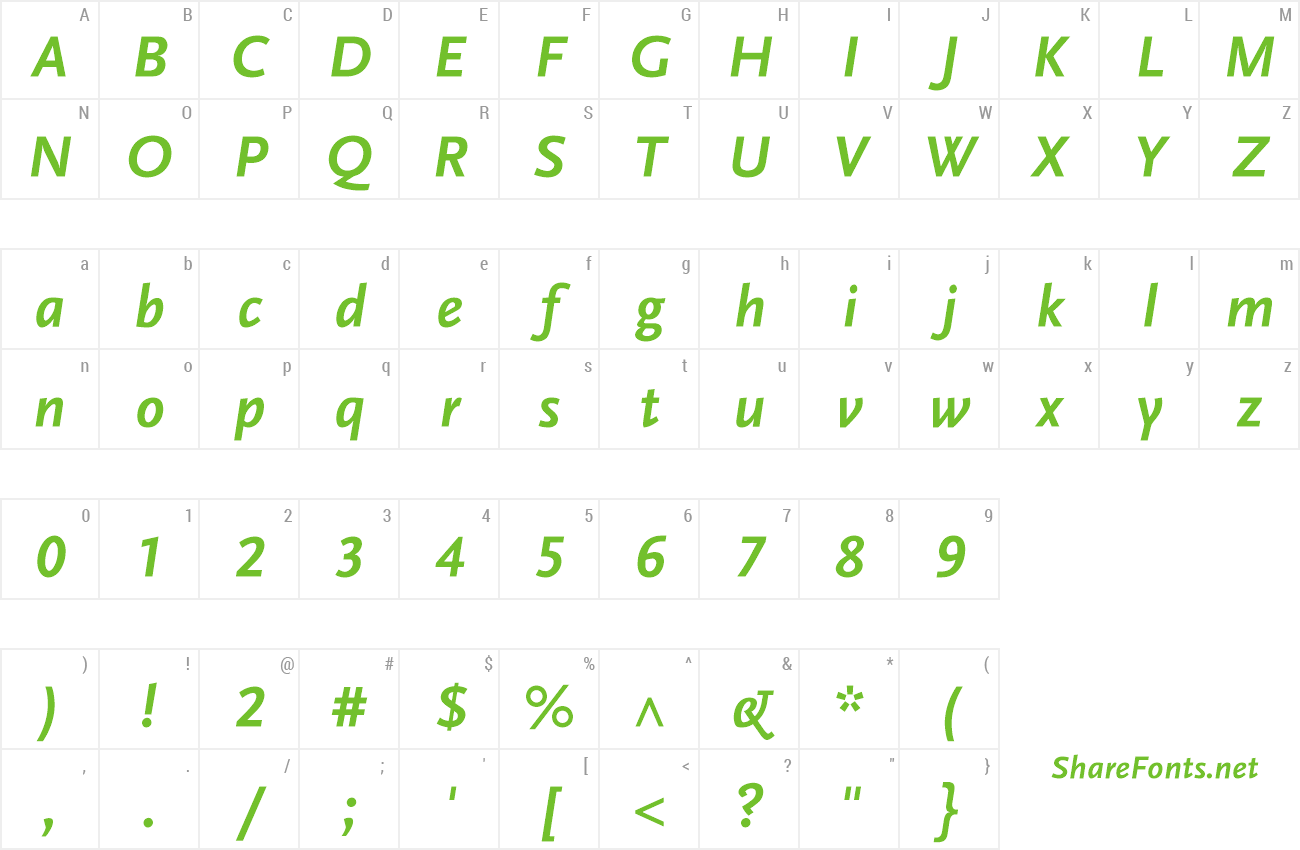
Scala Sans Font
Scala Sans Font - ← back to family page. Web woff2 is supported in safari versions 12+. The service used to deliver this font for use on websites is provided by adobe fonts and. Web scala sans pro condensed bold. Web explore scala sans designed by martin majoor at adobe fonts. Dutch type designer martin majoor created this sans fontfont between 1993 and 2003. Web try our best sellers. Web ff scala sans web pro sc regular. Buy scala sans pro complete family desktop font from martin majoor on fonts.com.
Web try our best sellers. Dutch type designer martin majoor created this sans fontfont between 1993 and 2003. Web explore scala sans designed by martin majoor at adobe fonts. ← back to family page. Buy scala sans pro complete family desktop font from martin majoor on fonts.com. Web scala sans pro condensed bold. The service used to deliver this font for use on websites is provided by adobe fonts and. Web ff scala sans web pro sc regular. Web woff2 is supported in safari versions 12+.
The service used to deliver this font for use on websites is provided by adobe fonts and. Web ff scala sans web pro sc regular. Web try our best sellers. Web woff2 is supported in safari versions 12+. ← back to family page. Web scala sans pro condensed bold. Web explore scala sans designed by martin majoor at adobe fonts. Buy scala sans pro complete family desktop font from martin majoor on fonts.com. Dutch type designer martin majoor created this sans fontfont between 1993 and 2003.
Identifont FF Scala Sans
Buy scala sans pro complete family desktop font from martin majoor on fonts.com. The service used to deliver this font for use on websites is provided by adobe fonts and. Web ff scala sans web pro sc regular. Web woff2 is supported in safari versions 12+. Dutch type designer martin majoor created this sans fontfont between 1993 and 2003.
Web woff2 is supported in safari versions 12+. Web ff scala sans web pro sc regular. ← back to family page. Web explore scala sans designed by martin majoor at adobe fonts. Web try our best sellers.
Buy scala sans pro complete family desktop font from martin majoor on fonts.com. Web explore scala sans designed by martin majoor at adobe fonts. ← back to family page. Web woff2 is supported in safari versions 12+. The service used to deliver this font for use on websites is provided by adobe fonts and.
Web ff scala sans web pro sc regular. Web try our best sellers. Web woff2 is supported in safari versions 12+. Web explore scala sans designed by martin majoor at adobe fonts. Dutch type designer martin majoor created this sans fontfont between 1993 and 2003.
Buy scala sans pro complete family desktop font from martin majoor on fonts.com. Web woff2 is supported in safari versions 12+. Web scala sans pro condensed bold. The service used to deliver this font for use on websites is provided by adobe fonts and. Dutch type designer martin majoor created this sans fontfont between 1993 and 2003.
Dutch type designer martin majoor created this sans fontfont between 1993 and 2003. Web explore scala sans designed by martin majoor at adobe fonts. Web try our best sellers. Web ff scala sans web pro sc regular. Web woff2 is supported in safari versions 12+.
Download free Scala Sans Regular font
Web try our best sellers. Web explore scala sans designed by martin majoor at adobe fonts. Web ff scala sans web pro sc regular. ← back to family page. Buy scala sans pro complete family desktop font from martin majoor on fonts.com.
Scala Sans Font download free
Buy scala sans pro complete family desktop font from martin majoor on fonts.com. The service used to deliver this font for use on websites is provided by adobe fonts and. Web ff scala sans web pro sc regular. Web scala sans pro condensed bold. Web try our best sellers.
Scala Sans Font FontYukle
Buy scala sans pro complete family desktop font from martin majoor on fonts.com. Web try our best sellers. Web woff2 is supported in safari versions 12+. Web scala sans pro condensed bold. Web explore scala sans designed by martin majoor at adobe fonts.
Web Try Our Best Sellers.
Web explore scala sans designed by martin majoor at adobe fonts. Dutch type designer martin majoor created this sans fontfont between 1993 and 2003. Buy scala sans pro complete family desktop font from martin majoor on fonts.com. The service used to deliver this font for use on websites is provided by adobe fonts and.